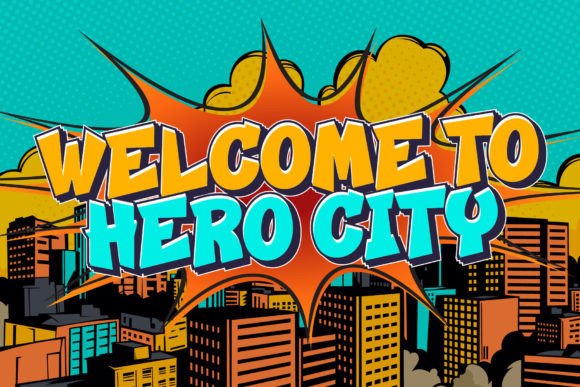
Super Hero Font
Super Hero is a fun and thick lettered display font. It is great for delivering any message with confidence, authenticity and charm. Use it for cartoons, magazine covers, games or pretty much anything that requires a jolly touch.